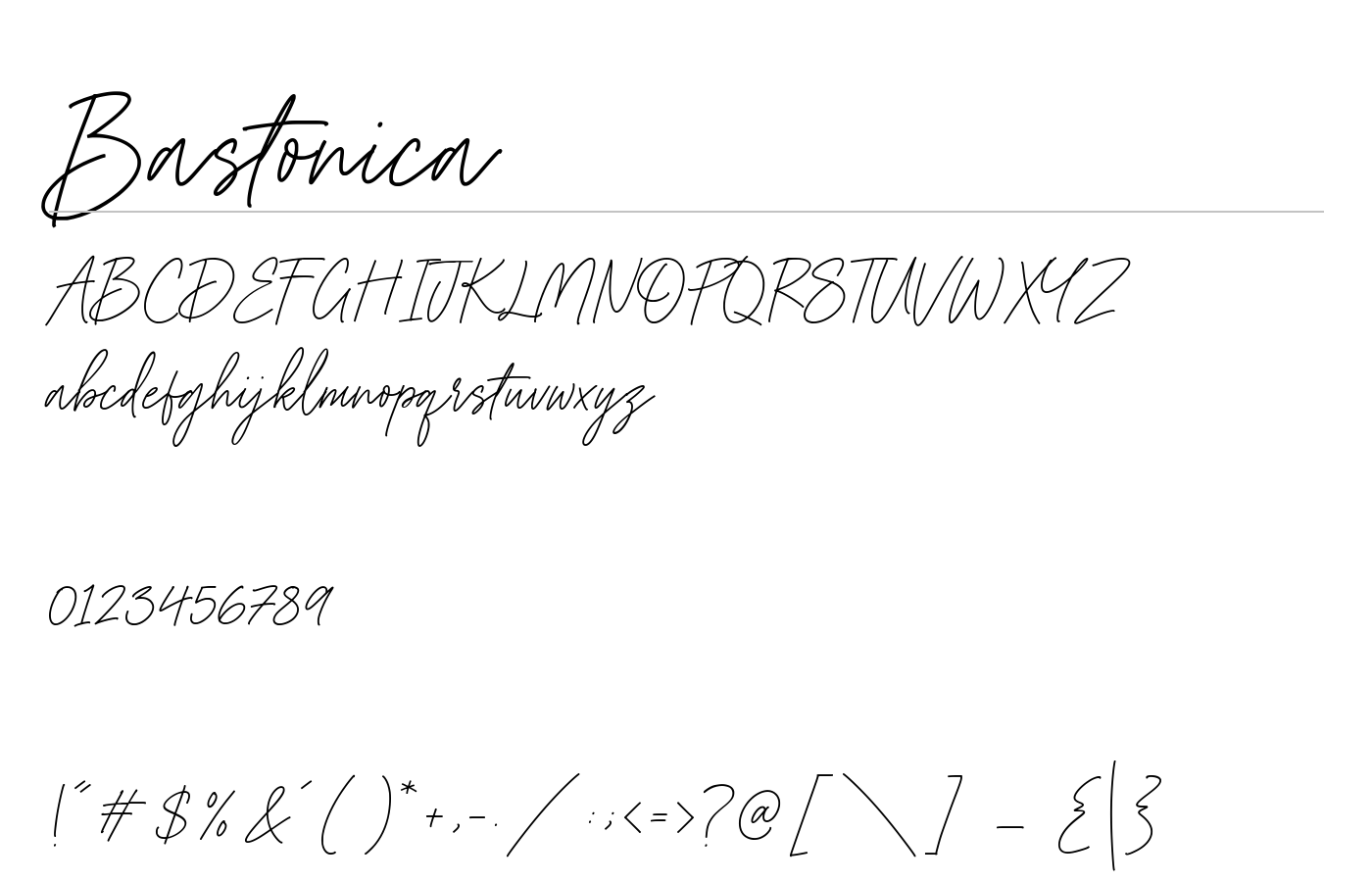
Bastonica is a delicate and elegant handwritten script font characterized by its light weight, slender strokes, and a natural, flowing style. Its tall, narrow letterforms with smooth, organic curves make it perfect for adding a personal and sophisticated touch to invitations, branding, and editorial designs. This font works beautifully in creative projects that seek a refined yet approachable handwriting feel.
Bastonica Font